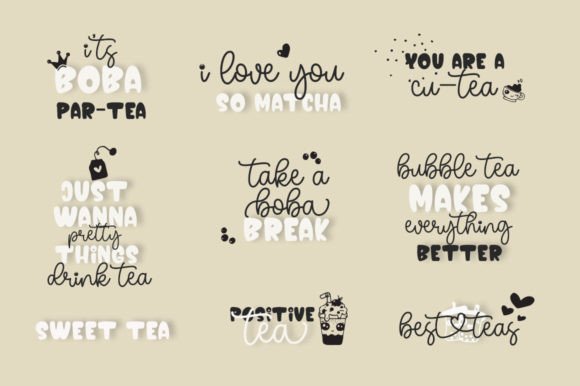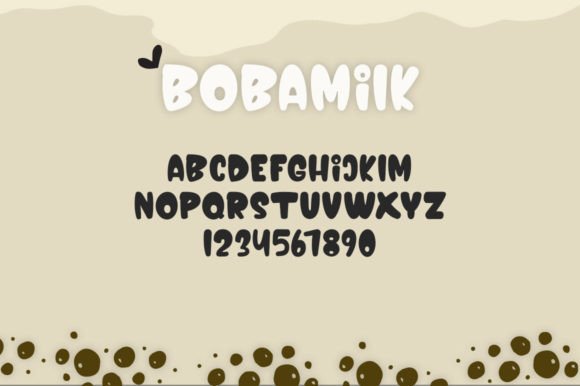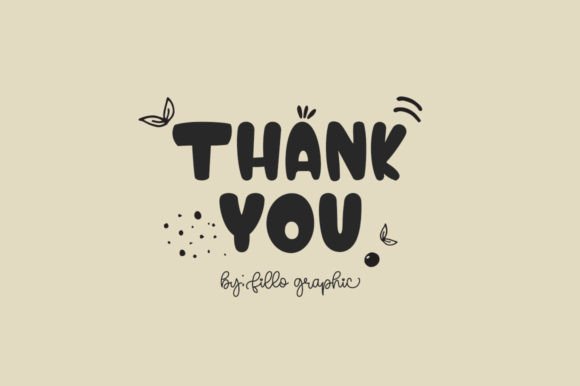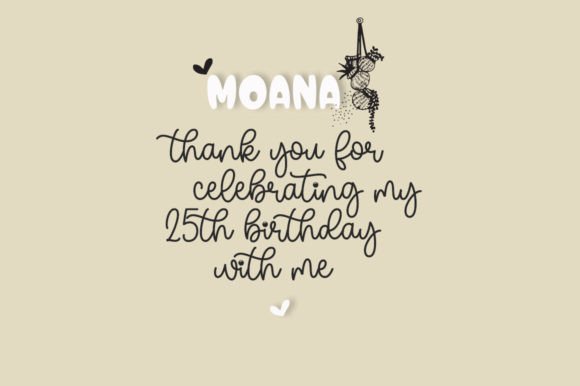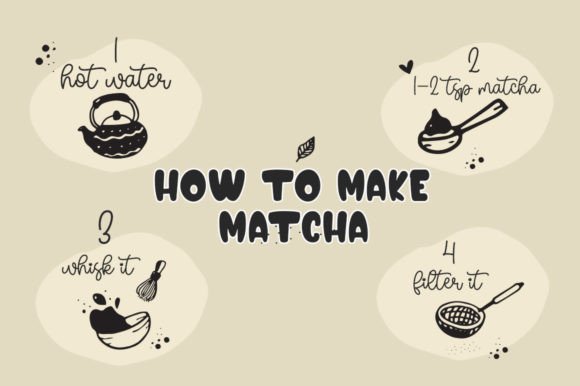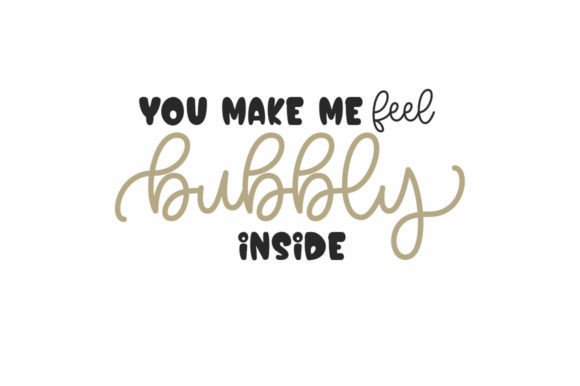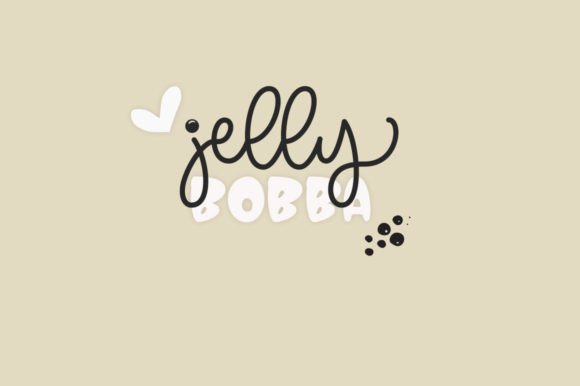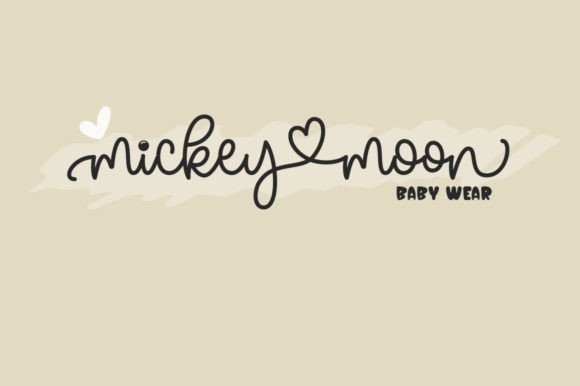
Boba Milk Font
The Boba Milk Font Download is a delightful font duo that combines script and display styles designed to complement each other perfectly. With its chic and cheerful vibe, it brings energy and charm to any project. Because it is PUA encoded, you can access all glyphs and ligatures with ease, making customization simple for both beginners and professionals.
A Fun Script and Display Combination
Boba Milk offers two unique styles that work beautifully together or independently. Unlike standard fonts, this Boba Milk script and display font adds versatility by giving you multiple creative options. As a result, it is perfect for projects where flexibility and playfulness are essential.
Perfect for Crafts and Greeting Cards
Handmade projects shine when typography feels cheerful. The Boba Milk Font is excellent for invitations, greeting cards, and DIY crafts. Moreover, its mix of script and display styles creates balance, making every design look lively and polished.
Branding and Packaging with Boba Milk Font
Typography builds strong brand identity, and the Boba Milk handwritten font duo is ideal for boutique logos, product packaging, and promotional designs. In addition, it gives businesses a playful yet stylish character that resonates with modern audiences.
Posters, Titles, and Large-Scale Projects
Posters and event designs need fonts that stand out. The Boba Milk Font Download works wonderfully on billboards, flyers, and magazine titles. At the same time, it remains stylish and legible in smaller formats, making it suitable for versatile use.
In digital platforms, creative typography helps content stand out. For example, the Boba Milk typeface integrates seamlessly with Instagram posts, YouTube thumbnails, Pinterest graphics, and blog headers. Its cheerful dual-style design adds extra personality to online projects.
Why Designers Choose Boba Milk Typeface
Designers love fonts that combine playfulness with functionality. Many handwritten or display fonts can feel limited, but the Boba Milk script and display duo provides flexibility without losing clarity. This makes it an excellent choice for both professional designers and hobbyists.
Add Playful Energy to Your Designs Today